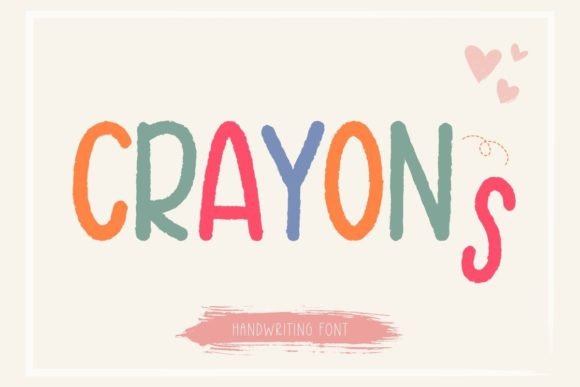
Are you ready to unleash your creativity and add a touch of whimsy to your designs? Look no further than Crayons, the heartwarming handwritten display font that will ignite your imagination. Inspired by the innocent charm of crayon drawings, Crayons captures the essence of childhood dreams and playful expressions. Immerse yourself in a world of vibrant colors and let your designs radiate with joy!
Step into a realm where imagination knows no bounds. Crayons is the perfect font for igniting creativity in all its forms. Whether you're a seasoned designer or just starting your journey, this font will inspire you to think outside the box and create designs that capture the hearts of your audience. Crayons is your gateway to a world of endless possibilities, where every stroke of the pen tells a unique story.
With Crayons, you can effortlessly transform any project into an enchanting masterpiece. Whether you're designing posters, invitations, cards, or T-shirts, this font will add an irresistible personal touch that sets your work apart. Picture your designs adorned with the vibrant hues and playful charm of Crayons, captivating your audience with its unique and inviting appeal.
As you embrace Crayons, you'll find yourself immersed in a world of pure delight. Its friendly and approachable nature makes it the ideal choice for projects that aim to evoke a sense of nostalgia and warmth. Whether you're designing materials for a children's book, a family-friendly event, or a lighthearted marketing campaign, Crayons will infuse your creations with an irresistible charm that leaves a lasting impression.
So, let the magic of Crayons ignite your passion for design. Let your imagination soar as you explore the endless possibilities that this font has to offer. Experience the joy of creating designs that resonate with audiences of all ages, leaving them with a smile on their face and a desire to engage with your brand. Unleash the power of Crayons today and开�a new chapter of creative excellence!